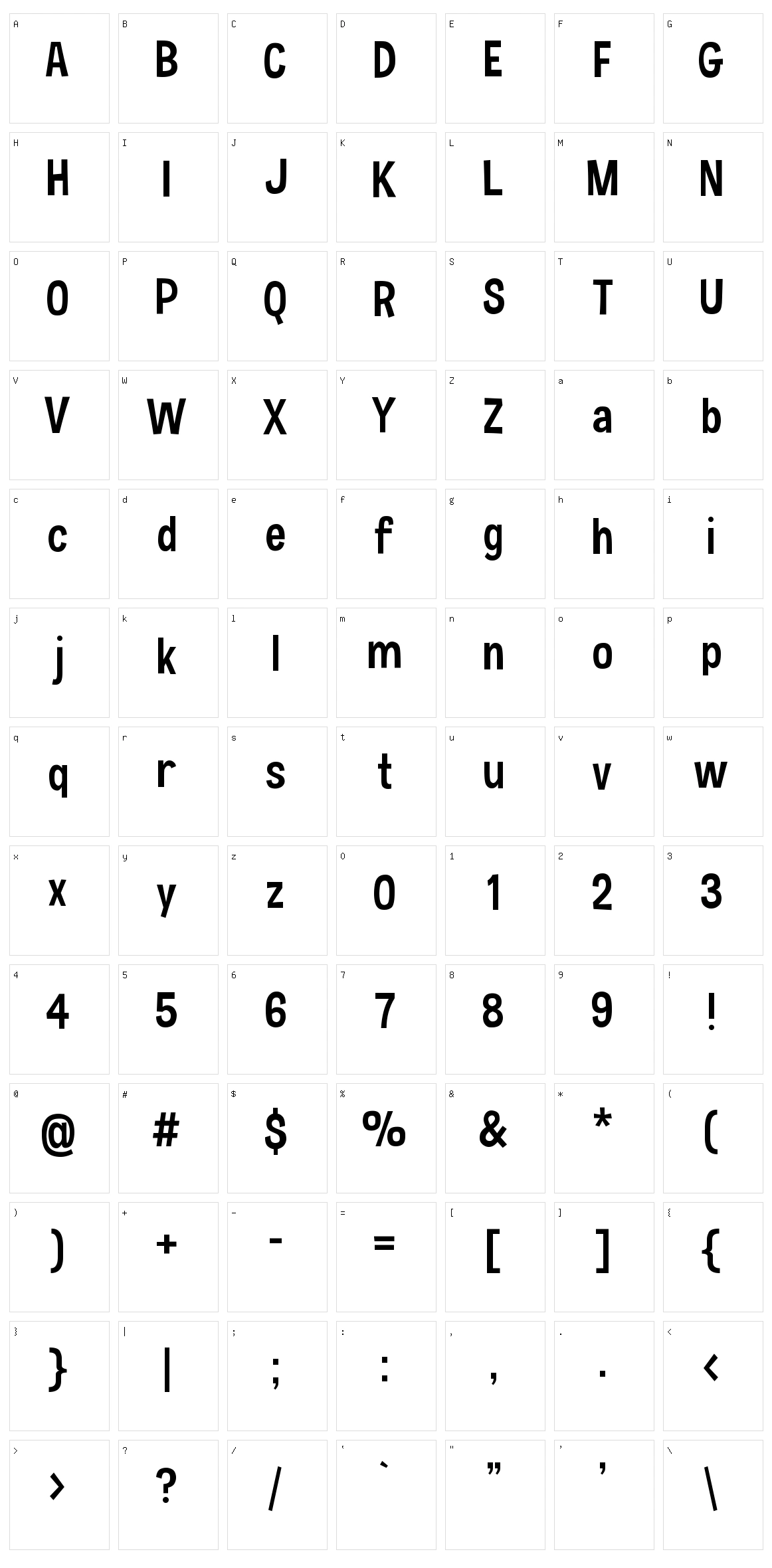
The free font Hauracherell NC is carefully designed by Jayvee Enaguas, showcasing a thoughtful balance of creativity and usability and falls under the Cartoon font style. When you download the ZIP file, it contains only 14.13 KB of font files, making it lightweight and quick to download. Please review the license details below to understand permitted usage and distribution rights. If license information is not available, we recommend using this font for personal projects only or contacting the author directly for commercial usage permissions.